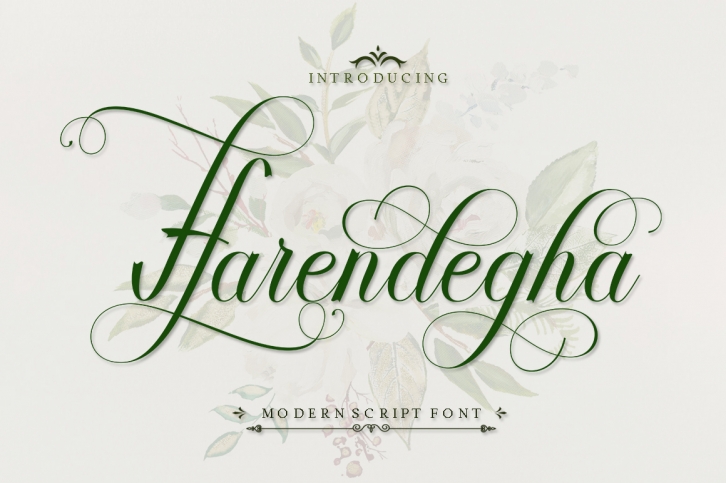
Harendegha is a gorgeous font that was realeased on September 15, 2019. The font can be used in many style contexts and design environments. Perfect for invitations, magazines, websites, logos, and more! It was designed by IM Studio and the file size is 19.69 MB. Thanks for checking out this font!